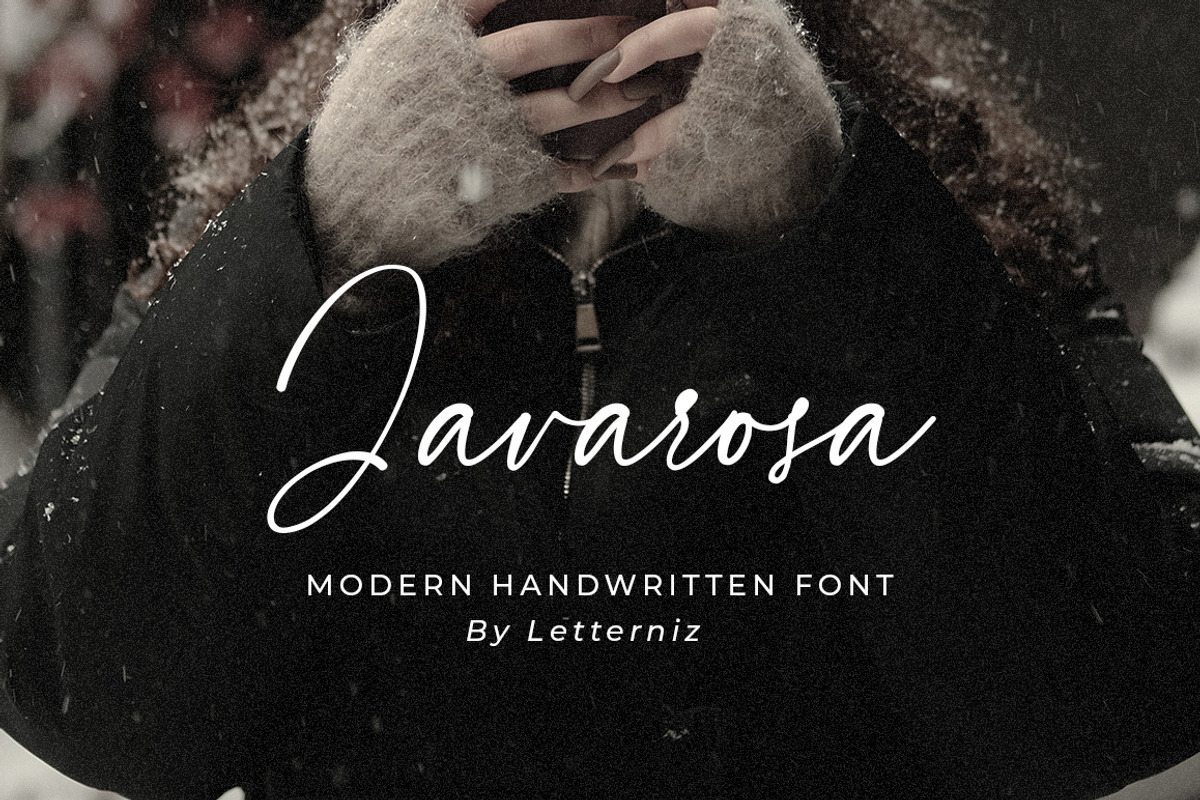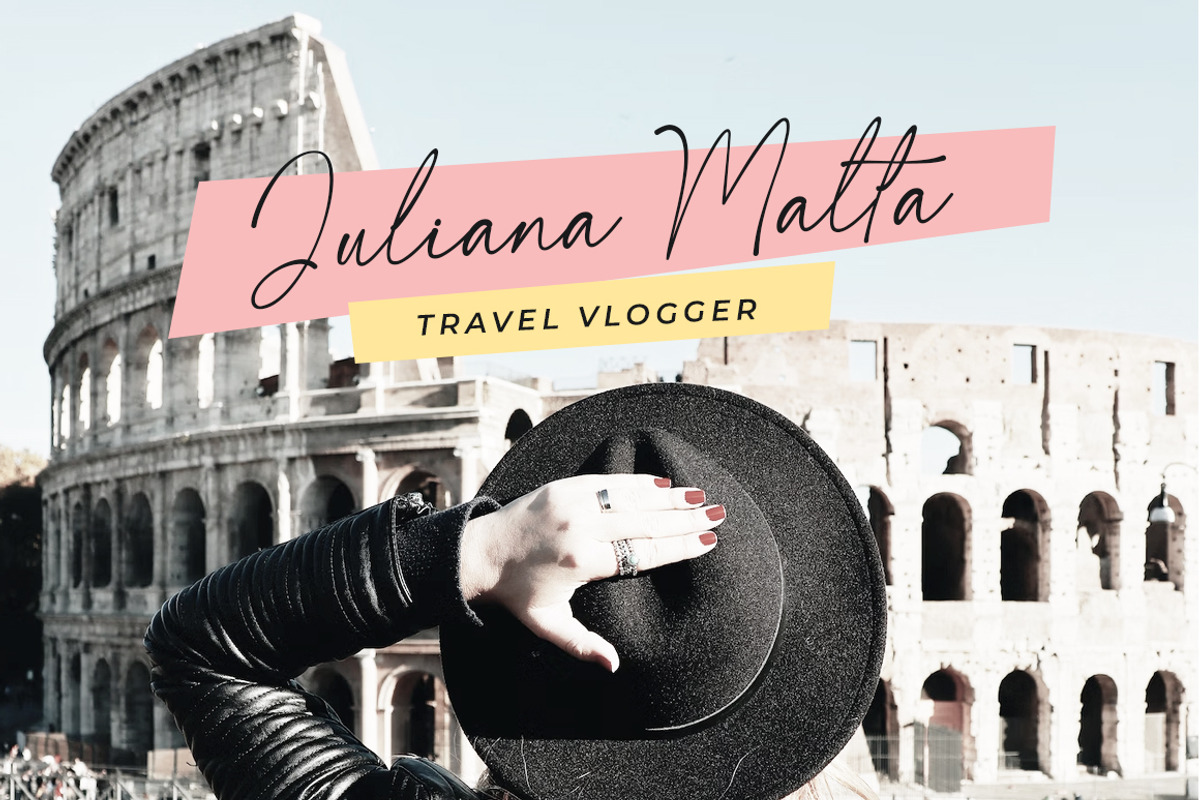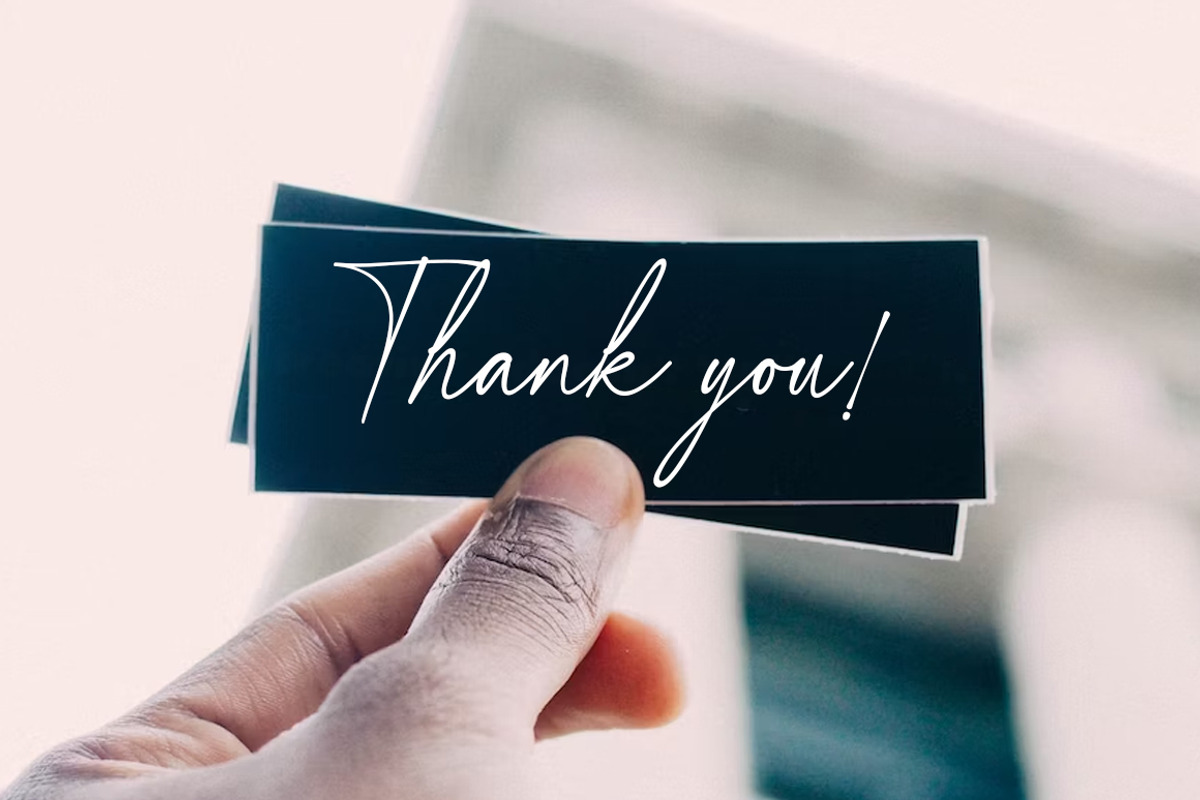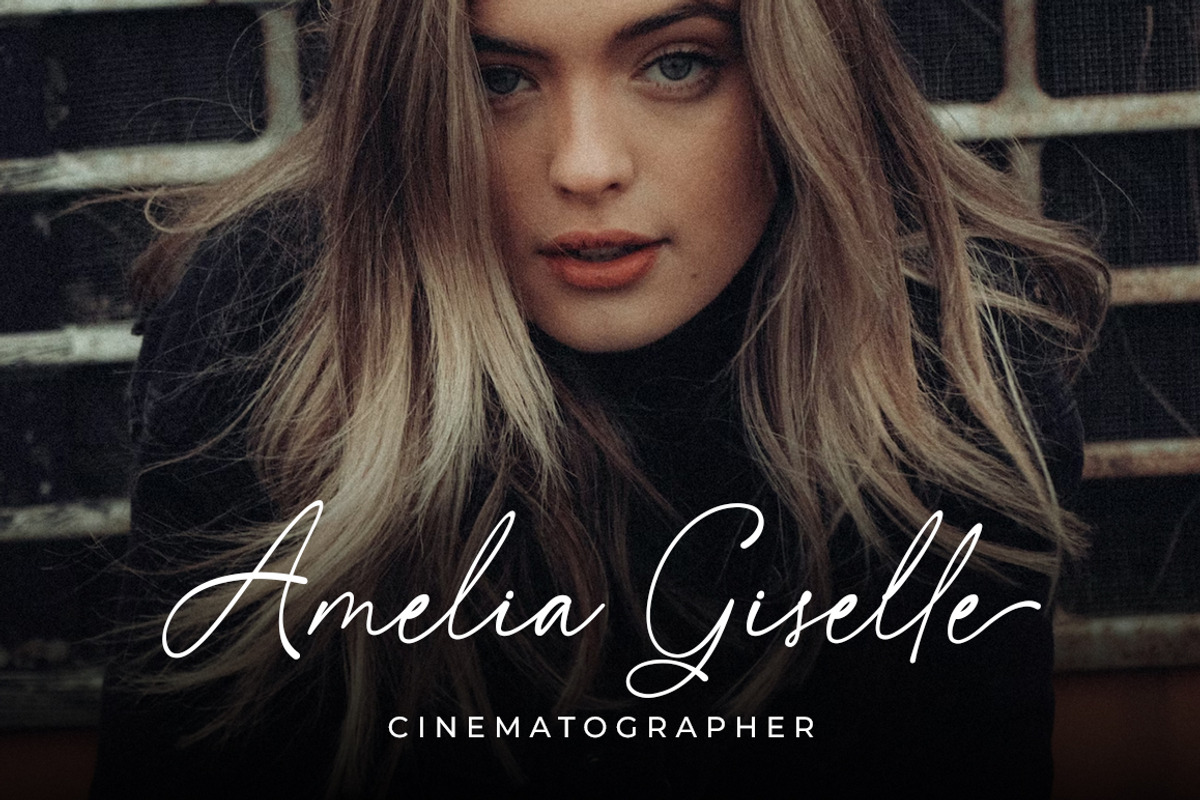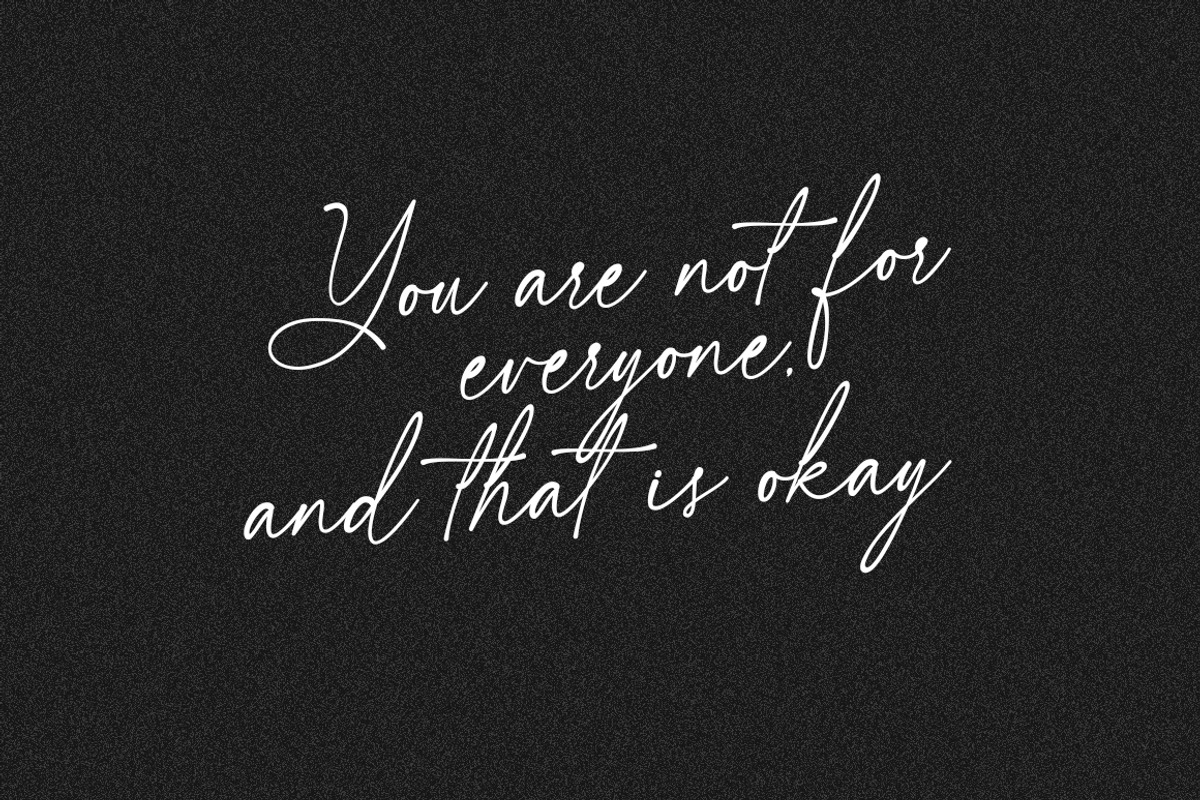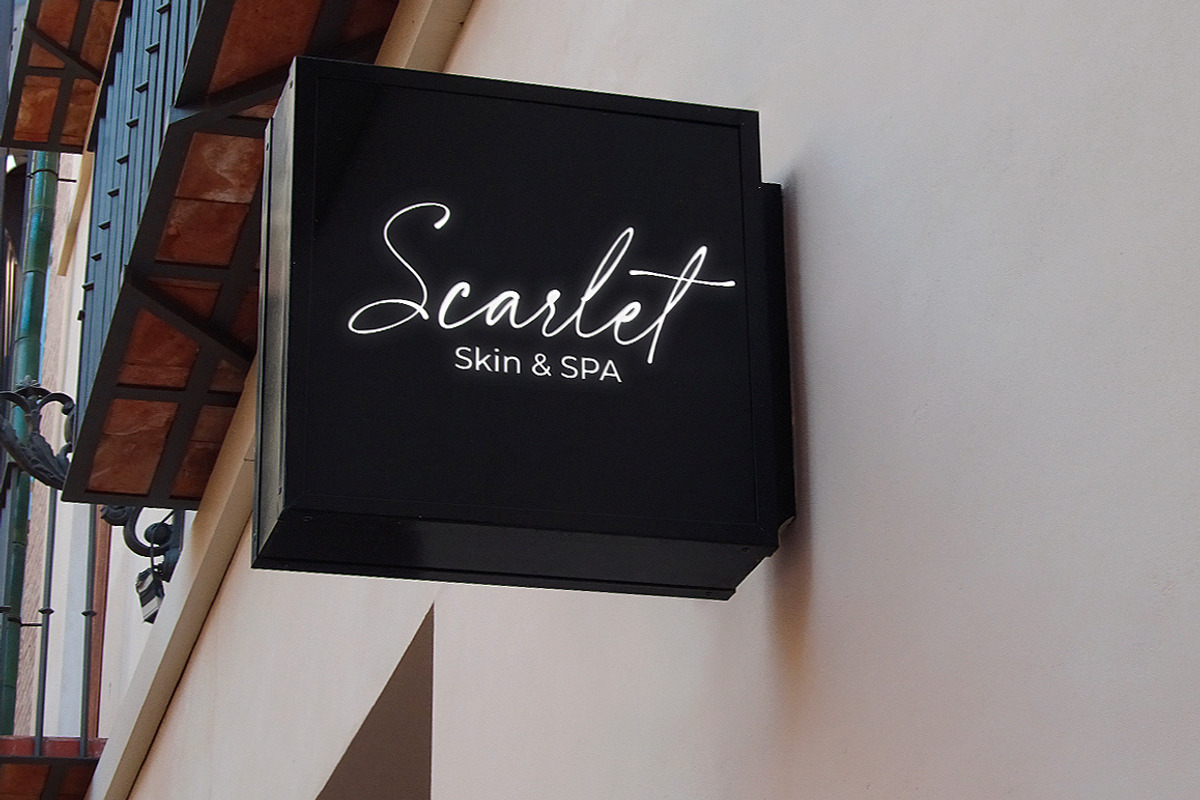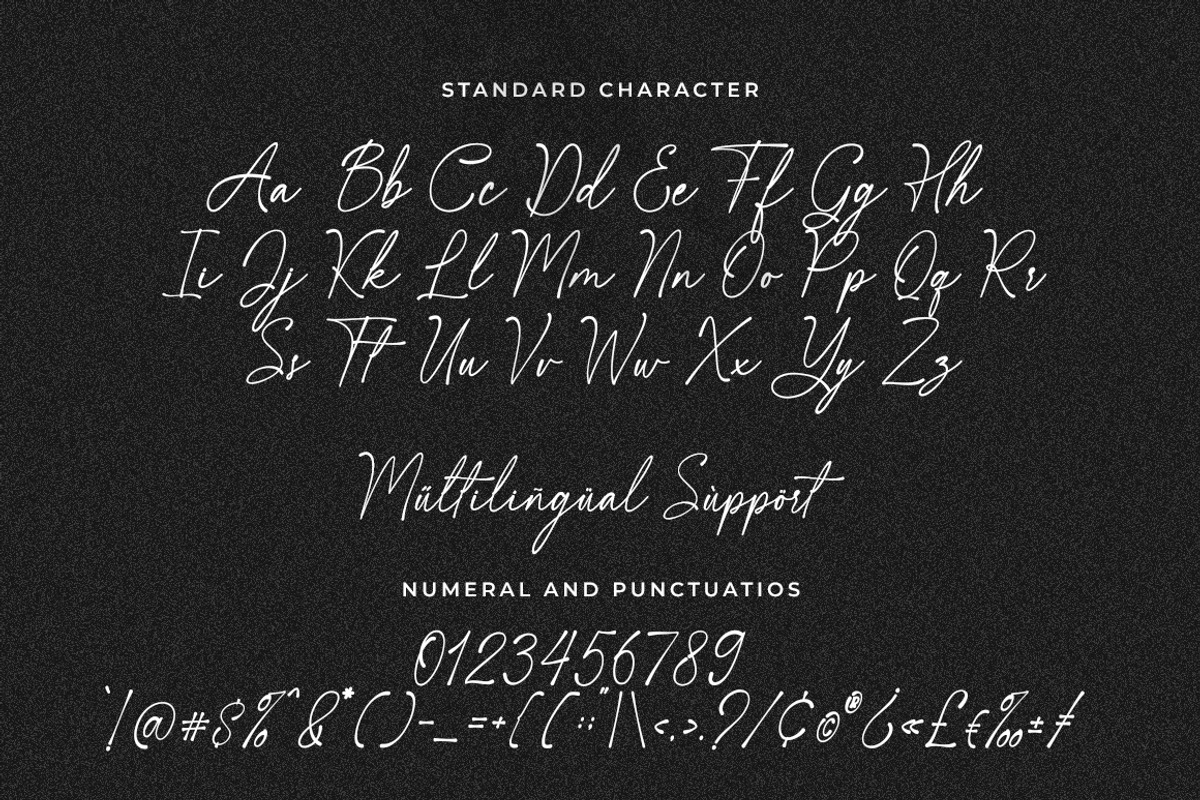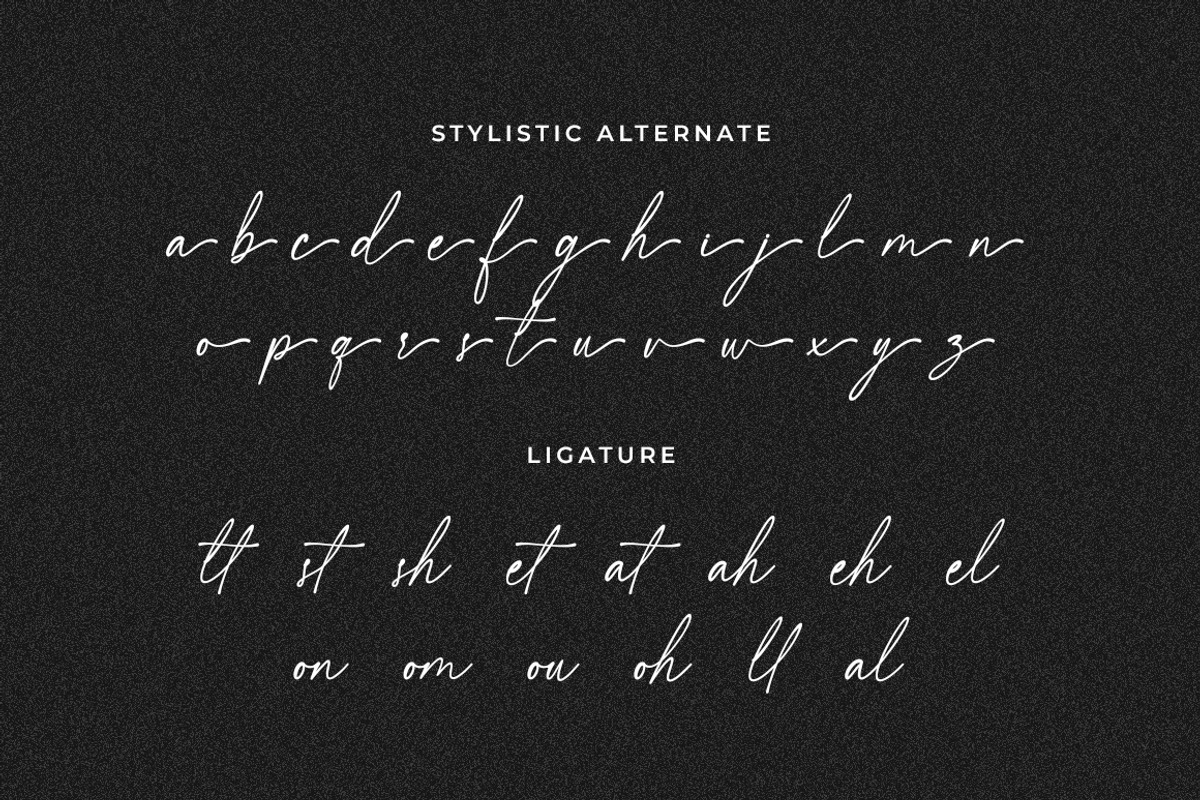
Javarosa Script Font
Javarosa is a handwritten script font. Looks stunning on wedding invitations, thank you cards, quotes, greeting cards, logos, business cards and any other design that requires a handwritten touch
- Standard Ligature
- Stylistic Set